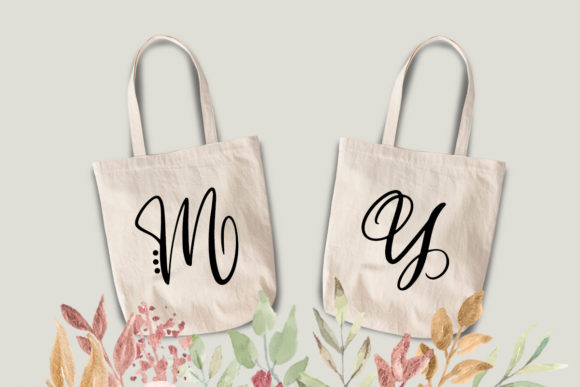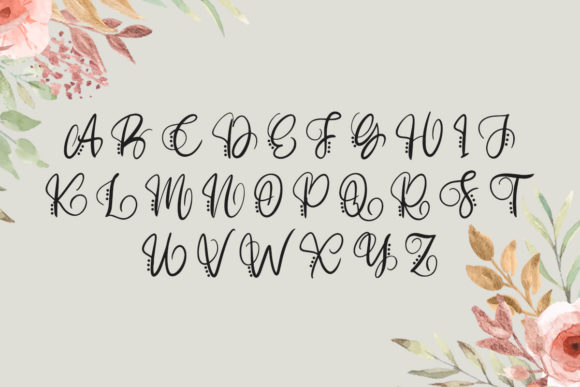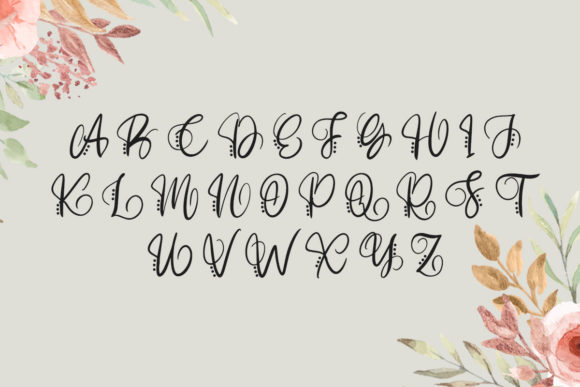
Introducing Curly Windy Font: The Perfect Script Font for Your Creative Projects
Are you a designer or crafter looking for a unique and authentic script font to elevate your creative projects? Look no further than Curly Windy Font! This stunning script font is perfect for creating gorgeous wedding invitations, beautiful stationary art, eye-catching social media posts, and cute greeting cards.
What Makes Curly Windy Font So Special?
Curly Windy Font is a one-of-a-kind script font that boasts an authentic feel, making it perfect for designers and crafters who want to add a touch of elegance and sophistication to their projects. Its unique curls and swirls give it a playful and whimsical feel, making it ideal for a wide range of creative applications.
Features of Curly Windy Font
- Unique Script Font: Curly Windy Font is a distinctive script font that stands out from the crowd. Its authentic feel and elegant curls make it perfect for creating beautiful and eye-catching designs.
- Authentic Feel: The font’s authentic feel makes it perfect for designers and crafters who want to create projects that look like they were created by hand.
- Easy to Read: Despite its curly and swirly design, Curly Windy Font is easy to read, making it perfect for use in a wide range of creative projects.
- Versatile: Curly Windy Font is a versatile font that can be used in a wide range of creative projects, from wedding invitations and stationary art to social media posts and greeting cards.
Uses for Curly Windy Font
Curly Windy Font is a versatile font that can be used in a wide range of creative projects. Here are some ideas to get you started:
- Wedding Invitations: Create stunning wedding invitations that will leave a lasting impression on your guests.
- Stationary Art: Use Curly Windy Font to create beautiful stationary art, including notecards, journals, and more.
- Social Media Posts: Add a touch of elegance and sophistication to your social media posts with Curly Windy Font.
- Greeting Cards: Create cute and playful greeting cards for special occasions, including birthdays, holidays, and more.
Why Choose Curly Windy Font?
There are many script fonts available, but Curly Windy Font stands out from the crowd. Here are just a few reasons why you should choose Curly Windy Font for your next creative project:
- Unique Design: Curly Windy Font has a unique design that will set your projects apart from the crowd.
- Elegant and Sophisticated: The font’s elegant and sophisticated feel makes it perfect for designers and crafters who want to create high-end projects.
Tips for Using Curly Windy Font
Here are a few tips for using Curly Windy Font in your creative projects:
- Use it Sparingly: While Curly Windy Font is beautiful, it can be overwhelming if used too much. Use it sparingly to add a touch of elegance and sophistication to your projects.
- Pair it with Other Fonts: Curly Windy Font pairs well with other fonts, including serif and sans-serif fonts. Experiment with different font combinations to find the perfect look for your project.
- Experiment with Colors: Curly Windy Font looks great in a variety of colors. Experiment with different colors to find the perfect look for your project.